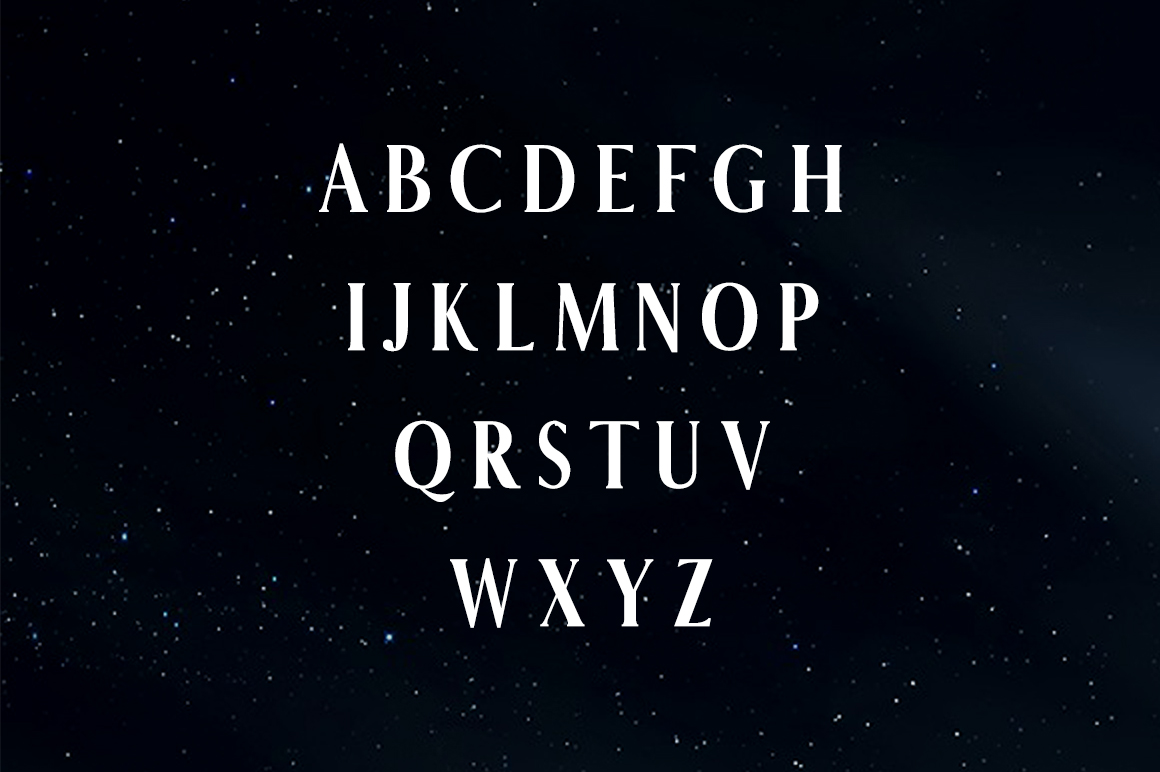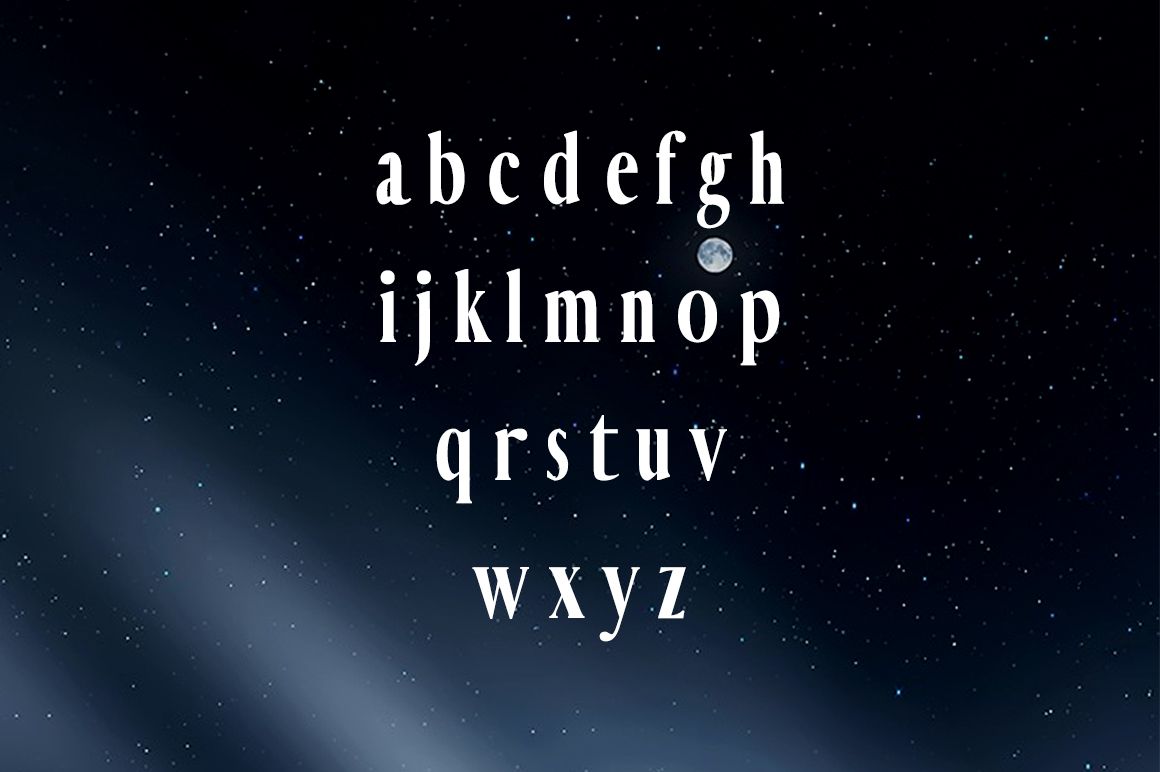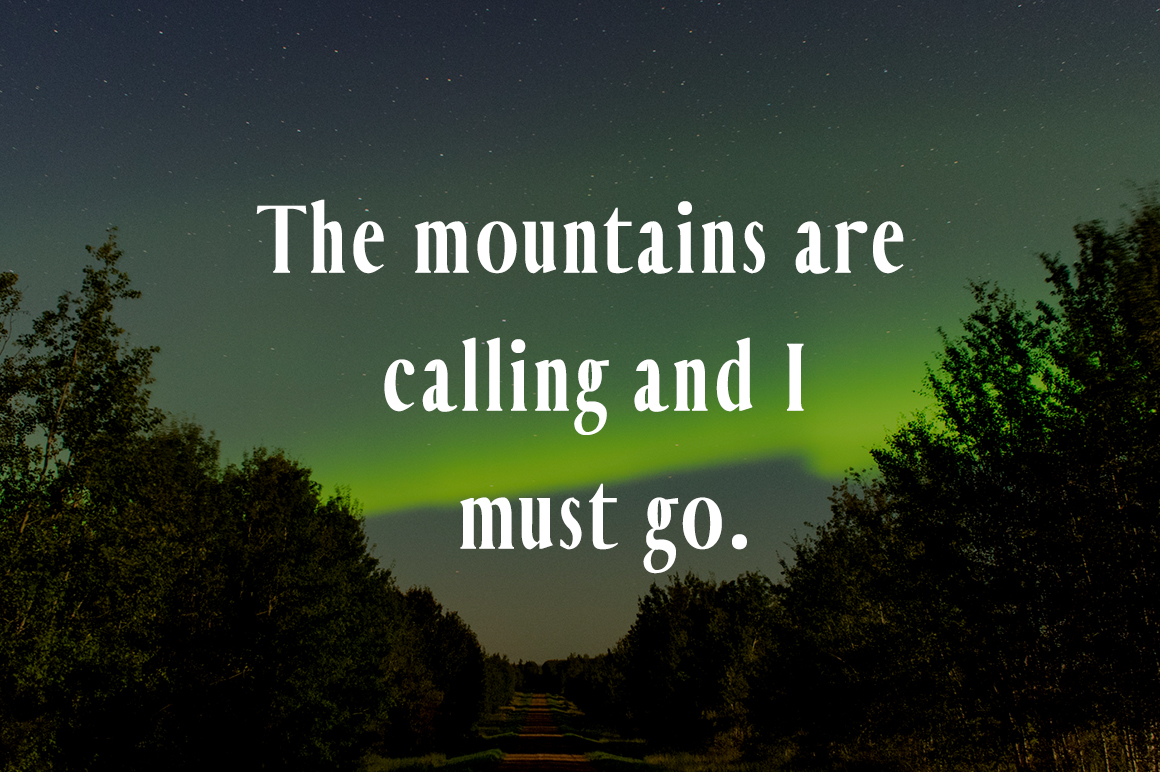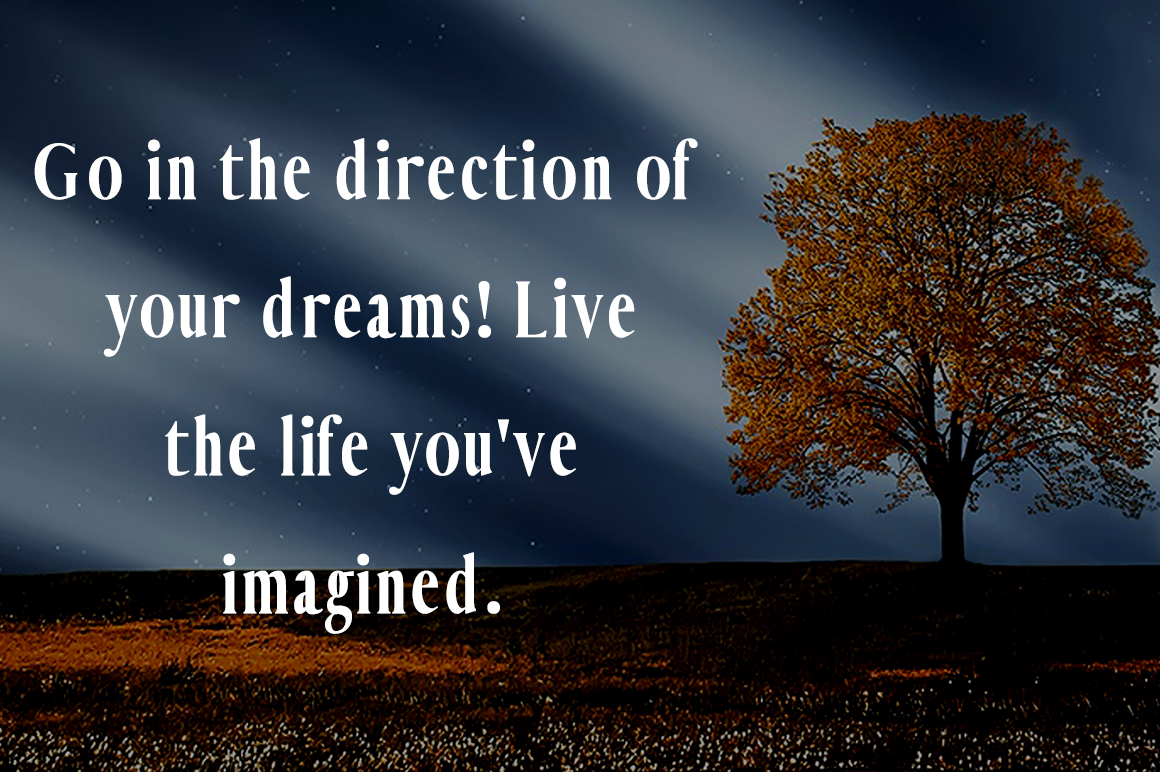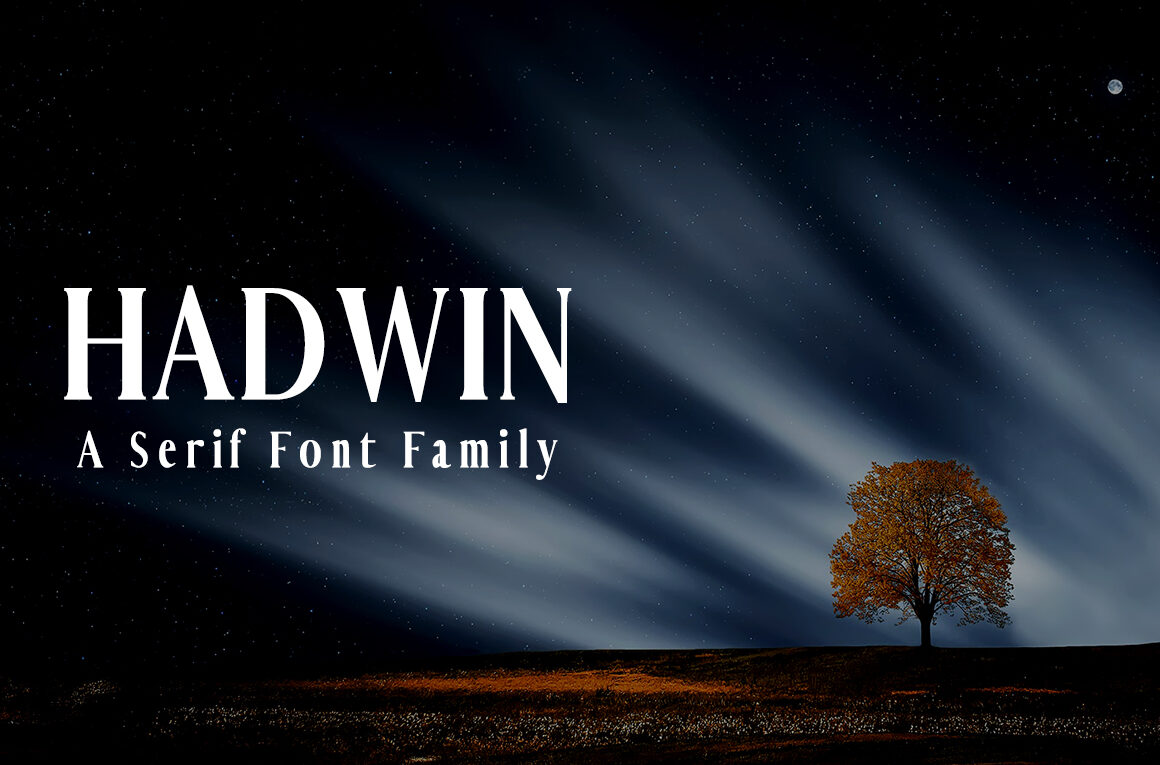
Introducing Hadwin Font: The Perfect Blend of Modernity and Elegance
Are you tired of using the same old fonts in your designs? Look no further! Hadwin Font is here to revolutionize the way you approach typography. This stunning serif font is designed to be soft on the eyes and breathtakingly beautiful on various designs. With its modern and clean aesthetic, Hadwin is the perfect choice for designers and crafters looking to add a touch of warmth and appeal to their work.
The Features of Hadwin Font
So, what makes Hadwin Font so special? Here are just a few of its standout features:
- Soft and Gentle on the Eyes: Unlike some fonts that can be harsh and overwhelming, Hadwin is designed to be easy on the eyes. Its smooth lines and rounded edges make it perfect for reading and viewing on various devices.
- Modern and Clean Aesthetic: Hadwin boasts a modern and clean design that’s perfect for a wide range of applications. Whether you’re working on a website, brochure, or social media graphic, Hadwin is sure to make a statement.
- Warm and Inviting: Despite its modern aesthetic, Hadwin has a warm and inviting feel that’s perfect for designs that need a touch of personality. Whether you’re trying to establish a brand’s tone or simply want to add some visual interest to your work, Hadwin is an excellent choice.
- Highly Versatile: Hadwin is an incredibly versatile font that can be used in a wide range of designs. From headings and titles to body text and captions, Hadwin is the perfect choice for any project that needs a touch of elegance and sophistication.
Why Choose Hadwin Font?
With so many fonts to choose from, why should you choose Hadwin? Here are just a few compelling reasons:
- Unique and Eye-Catching: Hadwin is a truly unique font that will help your designs stand out from the crowd. Its distinctive aesthetic is sure to grab attention and leave a lasting impression.
- Easy to Read: As mentioned earlier, Hadwin is designed to be soft on the eyes and easy to read. This makes it perfect for designs that need to communicate a message clearly and effectively.
- Professional and Sophisticated: Despite its modern aesthetic, Hadwin has a professional and sophisticated feel that’s perfect for designs that need to establish a level of authority or expertise.
How to Use Hadwin Font
Using Hadwin Font is incredibly easy. Here are just a few tips to get you started:
- Headings and Titles: Use Hadwin as a heading or title font to add a touch of elegance and sophistication to your designs.
- Body Text: Use Hadwin as a body text font to add a touch of warmth and personality to your designs.
- Branding and Identity: Use Hadwin as a primary font for your brand’s identity to establish a consistent and recognizable visual aesthetic.
In conclusion, Hadwin Font is a stunning serif font that’s perfect for designers and crafters looking to add a touch of warmth and appeal to their work. With its modern and clean aesthetic, soft and gentle lines, and highly versatile design, Hadwin is an excellent choice for a wide range of applications. Download Hadwin Font today and experience the difference for yourself!